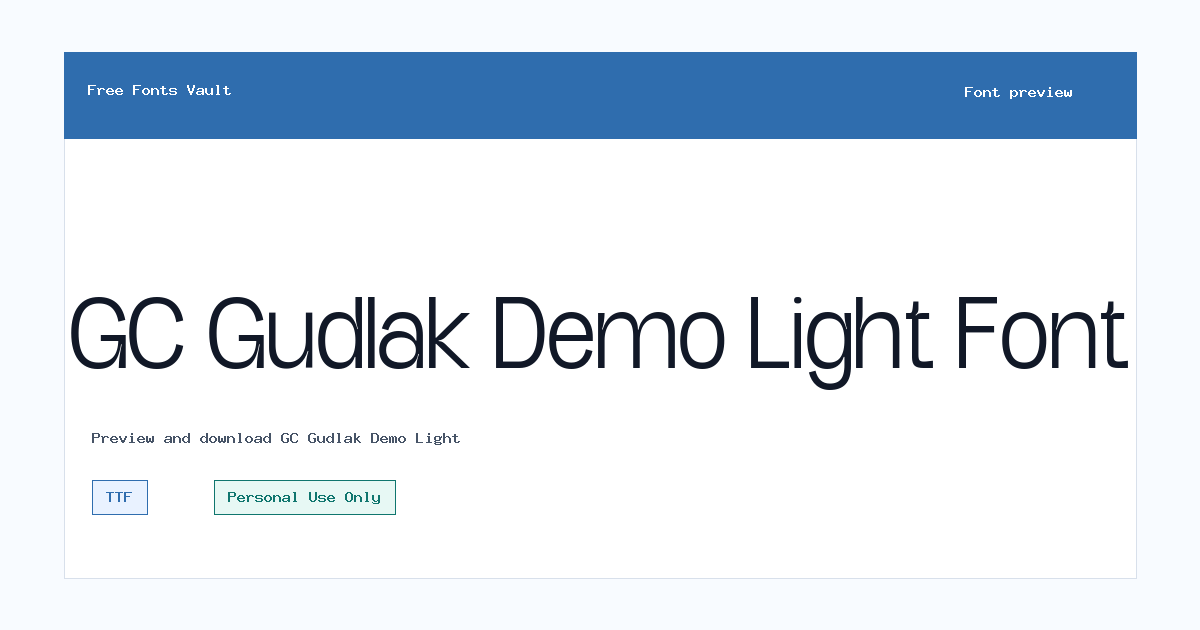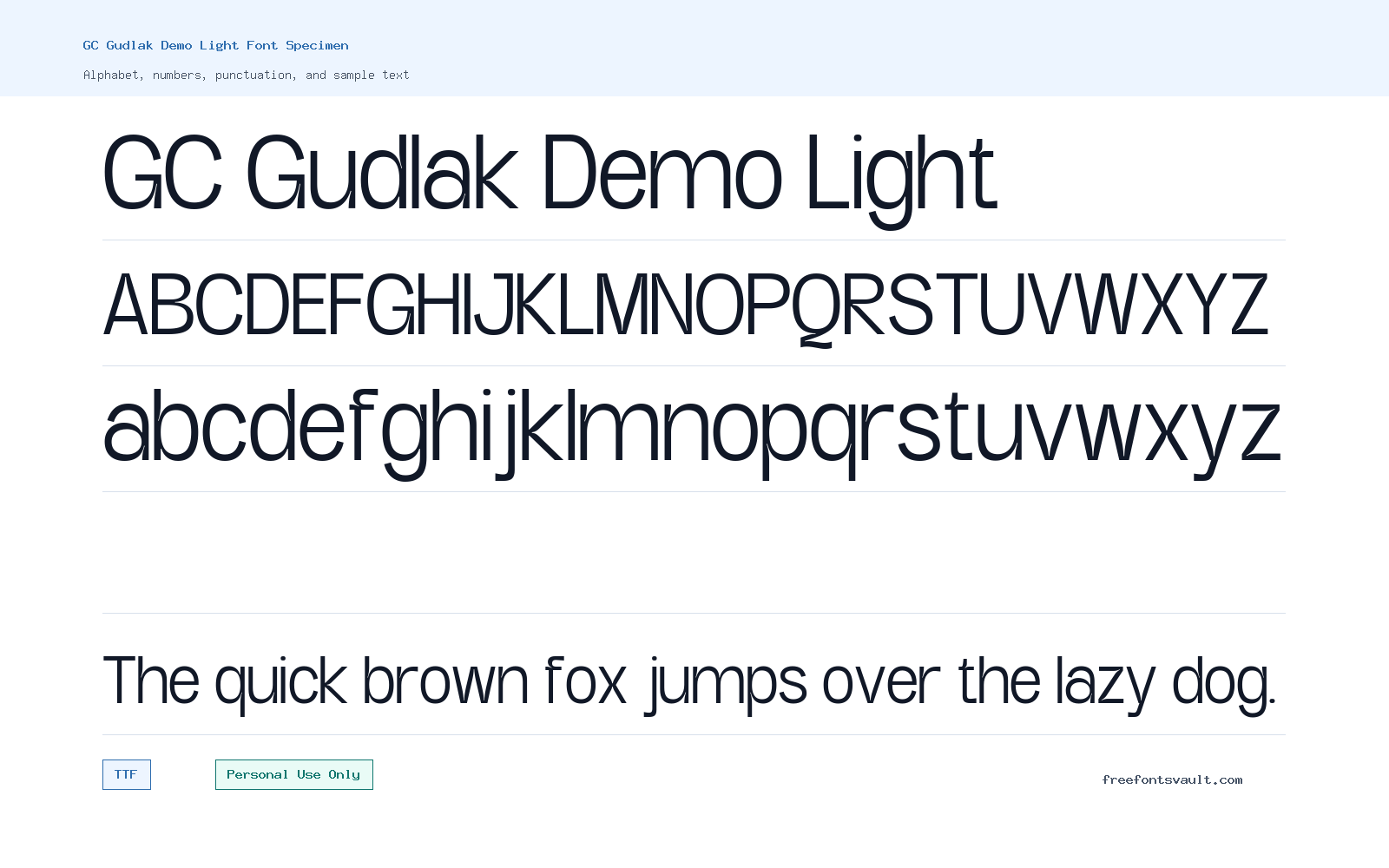
GC Gudlak Demo Light
- Designer Hanif Dwi Sulistyo of Glyphonic
GC Gudlak Demo Light is a light-weight sans serif demo font from the GC Gudlak family. It is suited to clean display text, simple headings, and personal design drafts where a lighter, airy style is useful.
About GC Gudlak Demo Light
GC Gudlak Demo Light has a thin, restrained look because the available font file is marked with a 300 weight. That makes it better for short lines than dense paragraphs. Use it when you want a clean sans serif voice without heavy strokes: title cards, poster headings, social graphics, mood boards, invitations, portfolio mockups, or early brand layout tests. Since the available style is normal and light, it works best when given enough size and spacing. At small sizes, very light fonts can lose contrast, especially on low-resolution screens or busy backgrounds.
Try the preview with the exact words you plan to use. Test uppercase and lowercase, short names, numbers, punctuation, and any accented characters your project needs. A light sans serif can look refined in a large headline, but it may need stronger support text beside it. Pair it with a heavier sans serif, a readable serif, or a simple system font for body copy. Avoid placing it over textured images unless you add contrast with a solid panel, shadow, or darker background. The downloadable file is a TTF, which is widely supported in common design tools and many desktop projects.
- Light 300-weight sans serif style for clean titles, labels, and display text.
- Works best at larger sizes where the lighter strokes stay clear and readable.
- Personal poster concepts, social media drafts, quote graphics, and title layouts.
- Logo roughs, portfolio mockups, invitations, and simple editorial headings.
- Testing a lighter sans serif look before choosing final production typography.
- Designs with plenty of whitespace and good contrast between text and background.
The font is credited to Hanif Dwi Sulistyo of Glyphonic, with Glyphonic listed as the foundry.
What kind of font is GC Gudlak Demo Light?
It is listed as a sans serif font, and the available file is a light 300-weight style in normal upright form.
Is GC Gudlak Demo Light good for body text?
It is better for short headings and display text. Because it is a light-weight style, long paragraphs or small sizes may be harder to read.